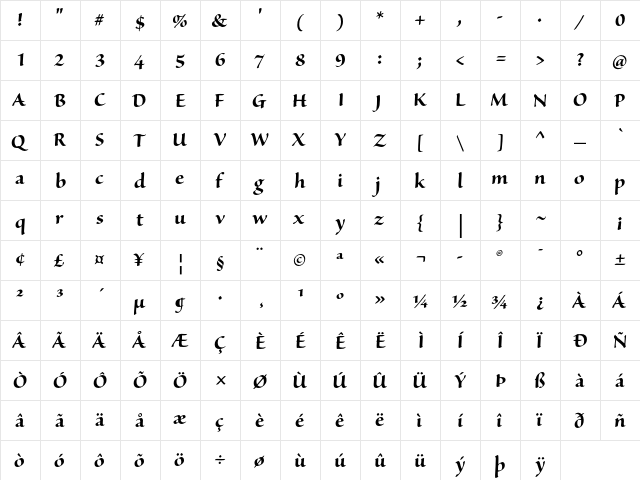
Sanvito Pro Bold Display
| Designer | Robert Slimbach |
Design Context for Sanvito Pro Typeface
Sanvito Pro is built around its visual character rather than neutral utility — its distinctive forms are designed to make an impression at display sizes. Its bold stroke weight gives it real presence on the page.
Font Pairing: Pair with a clean neutral sans-serif for body copy to let Sanvito Pro's character lead without overwhelming the composition.
Pro Tip: Use Sanvito Pro exclusively at display sizes — it was designed to be seen, not read at length. Let a neutral companion handle body copy.